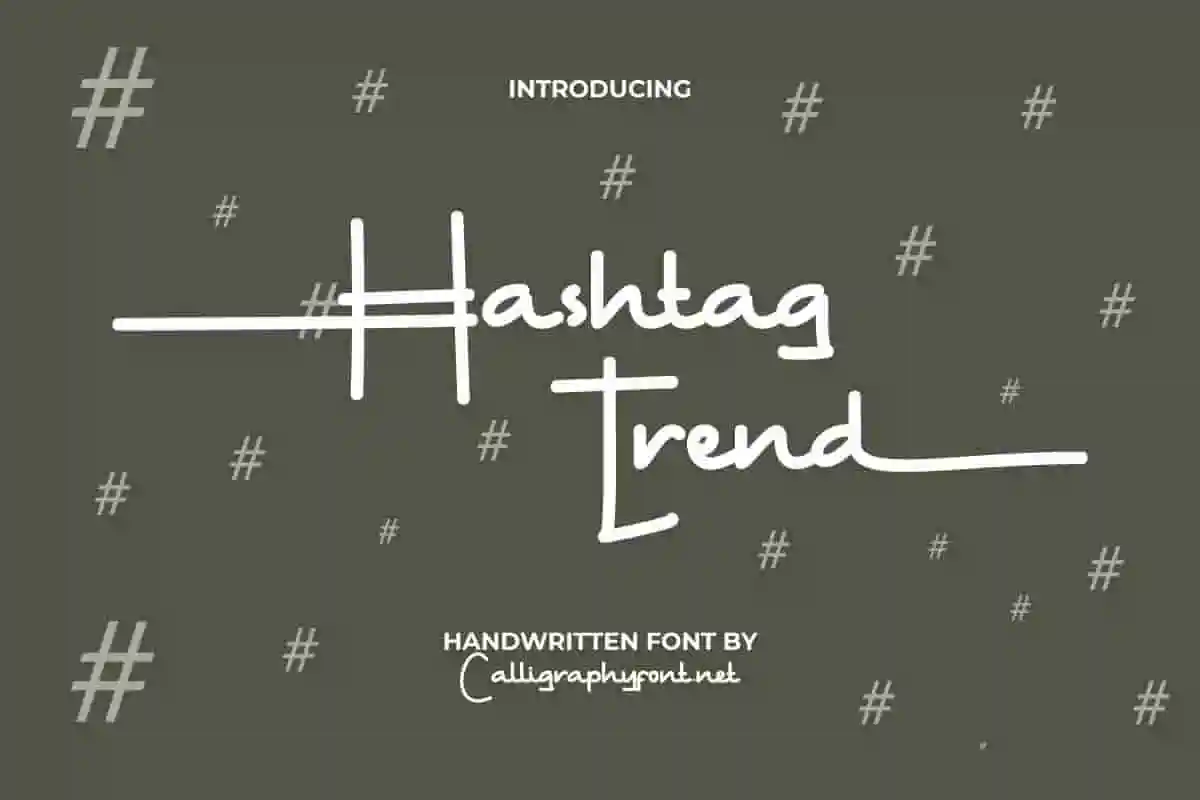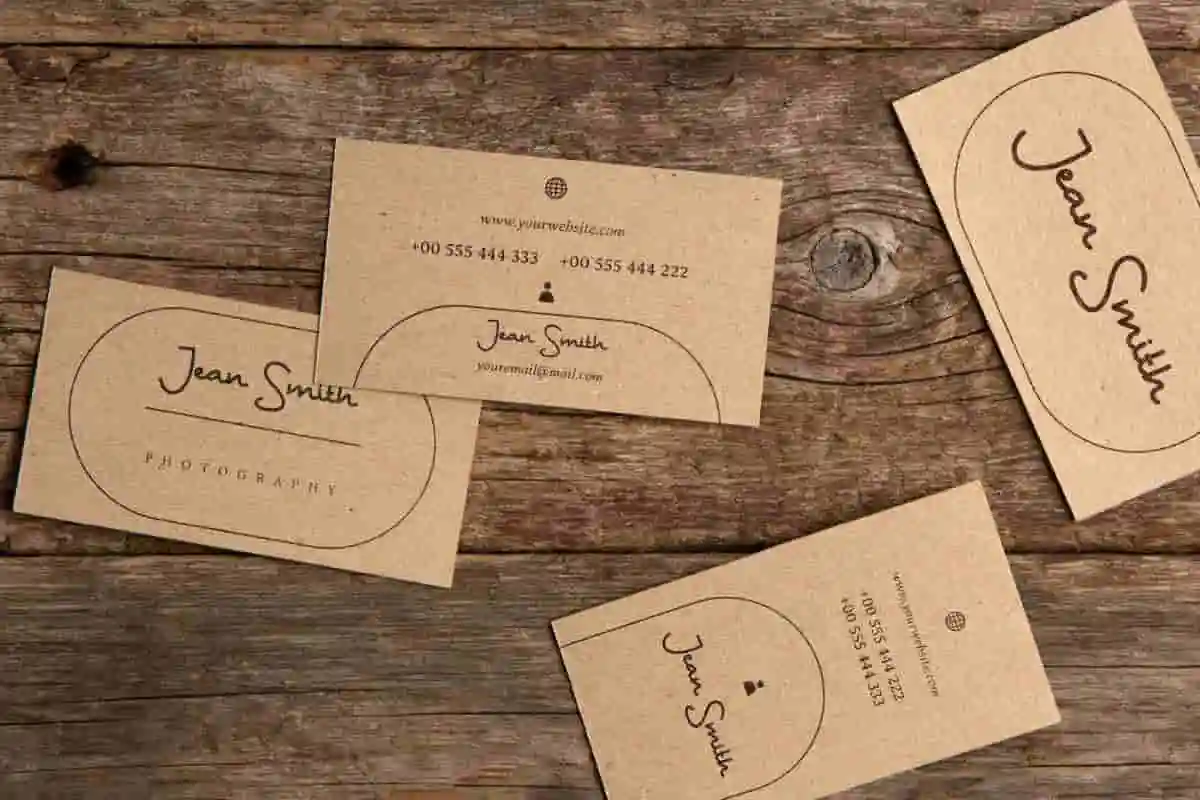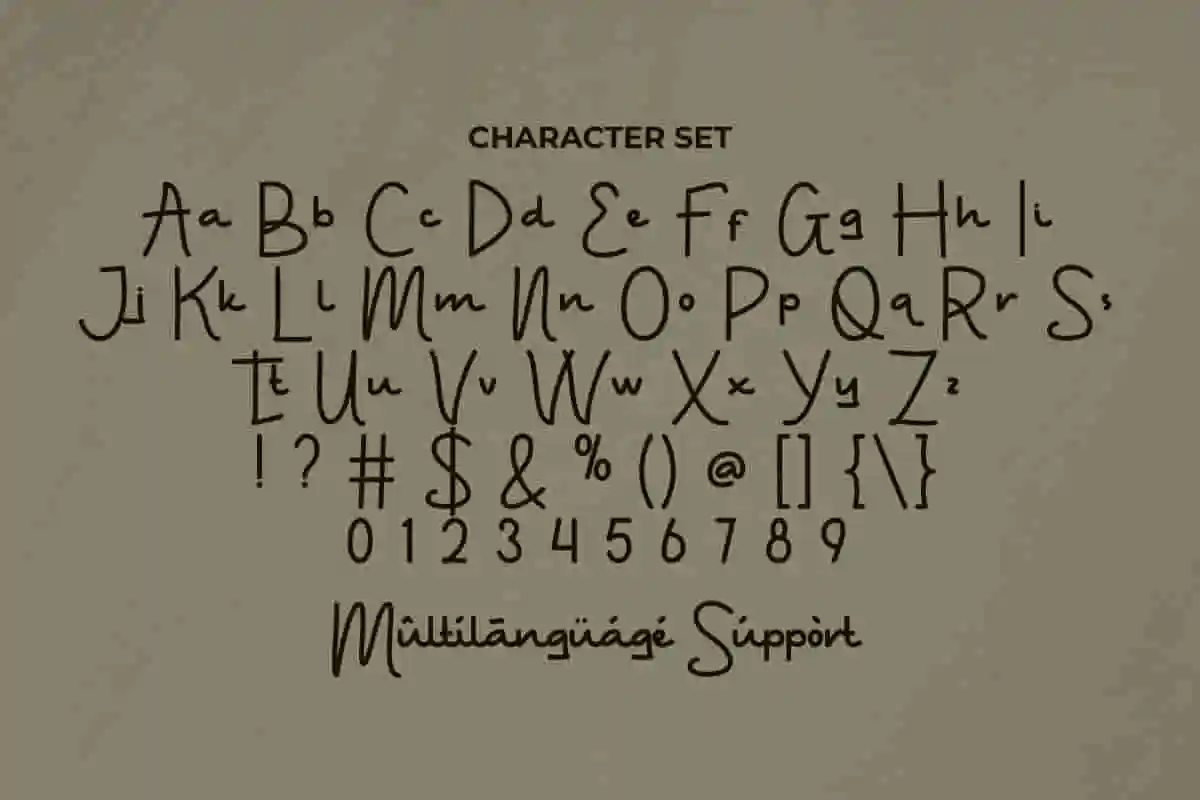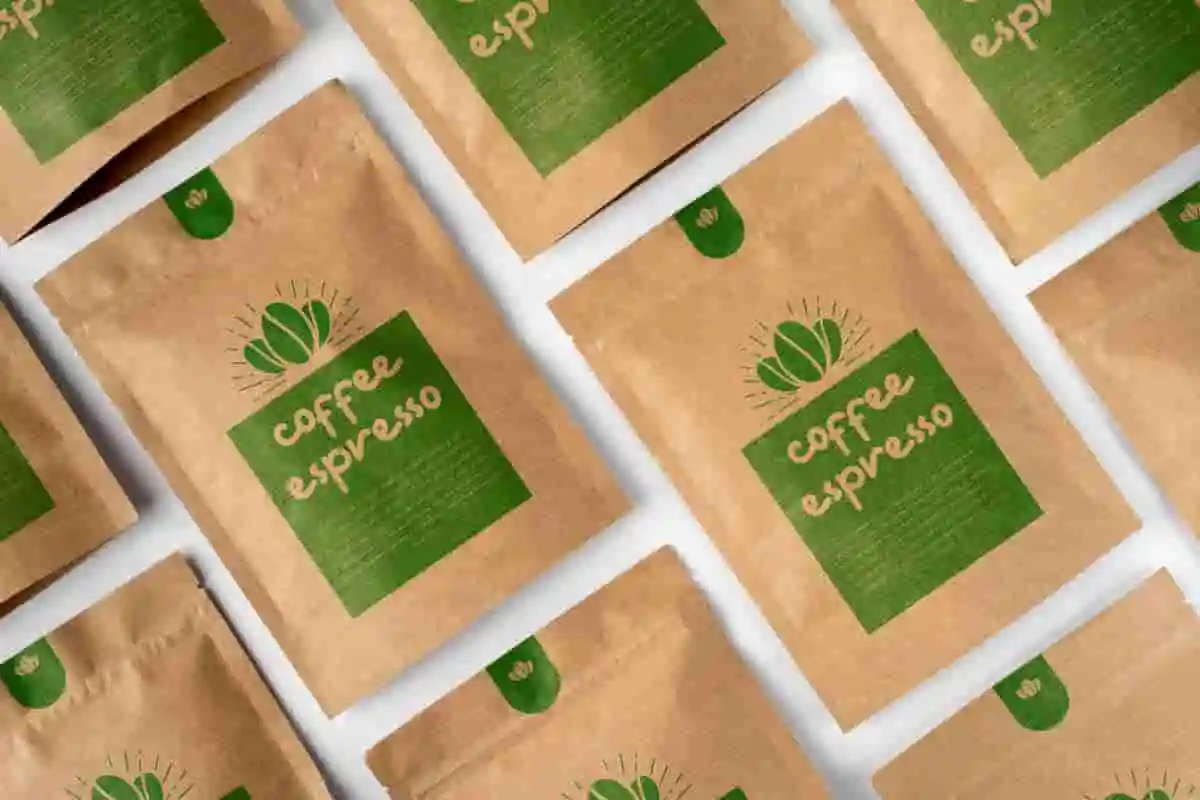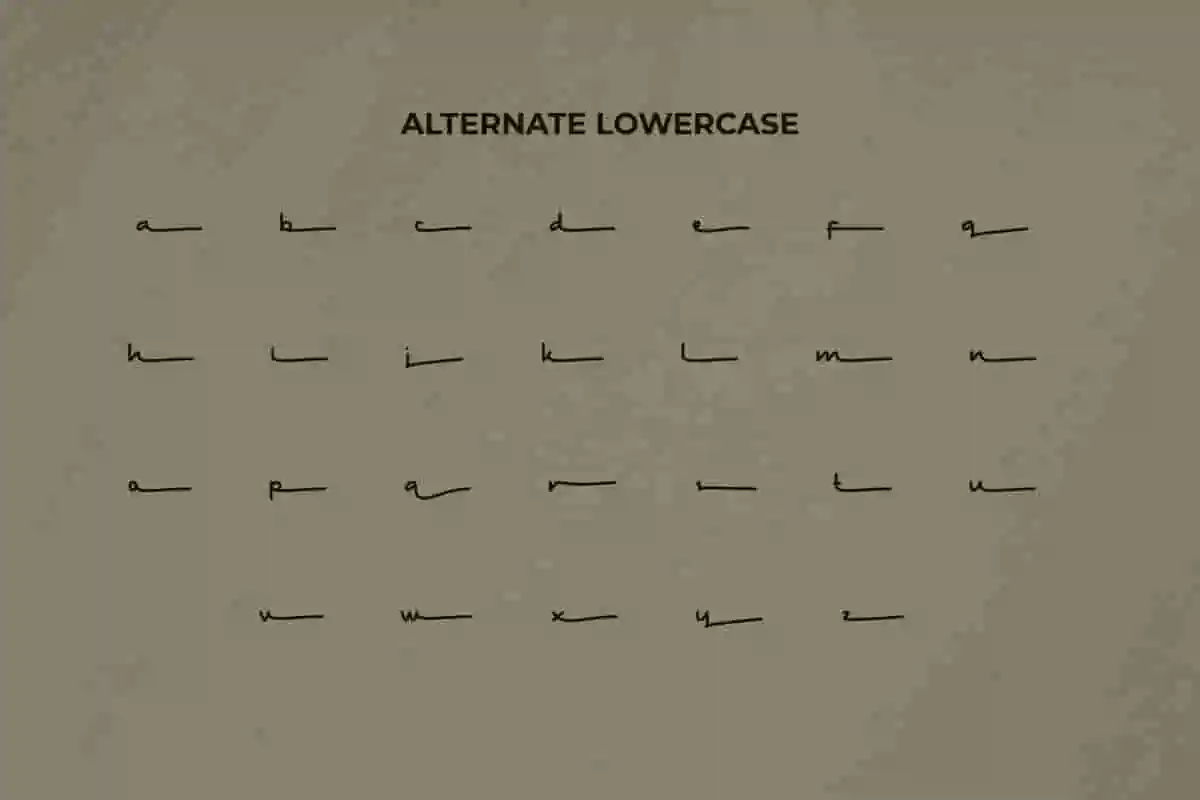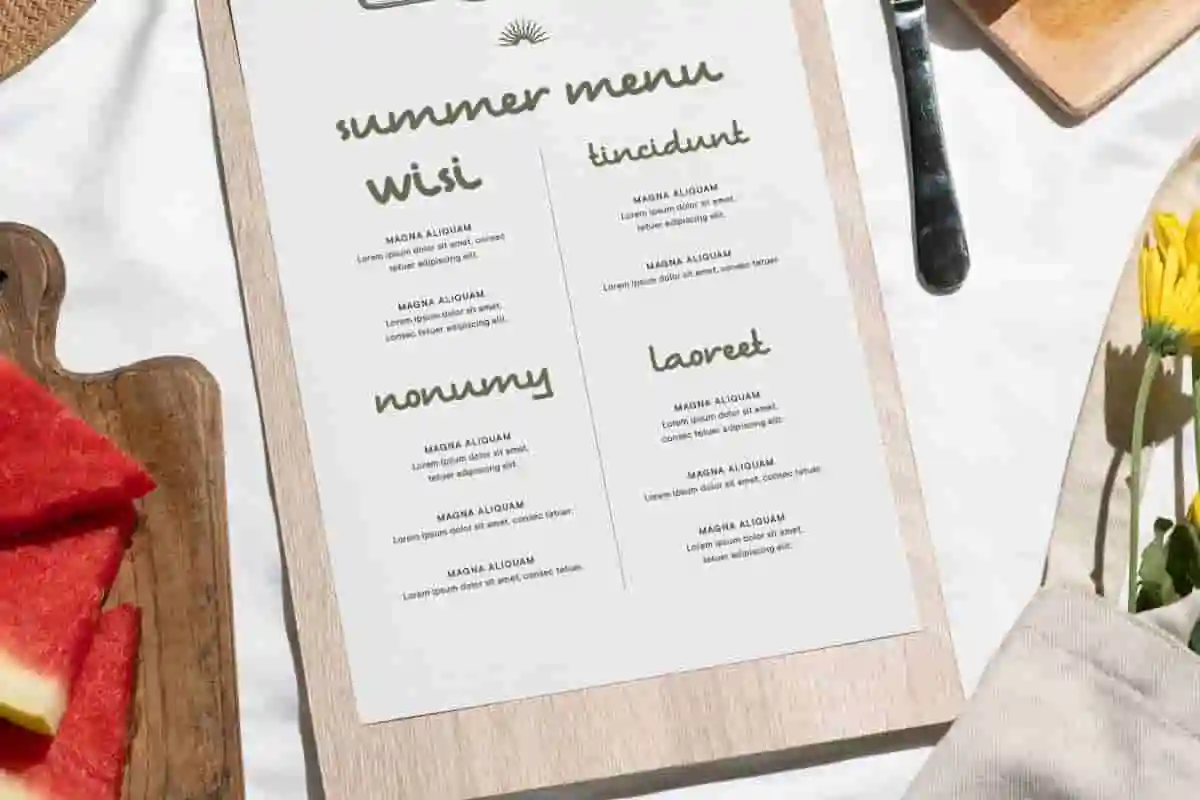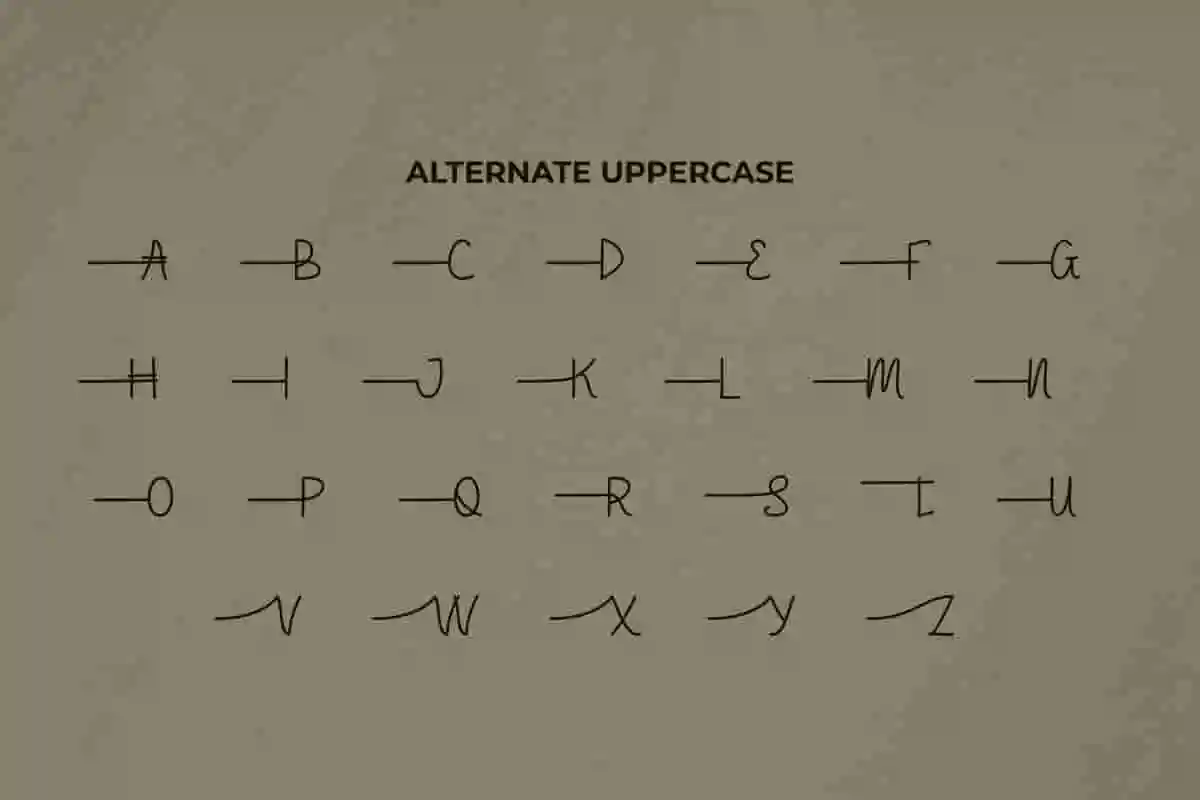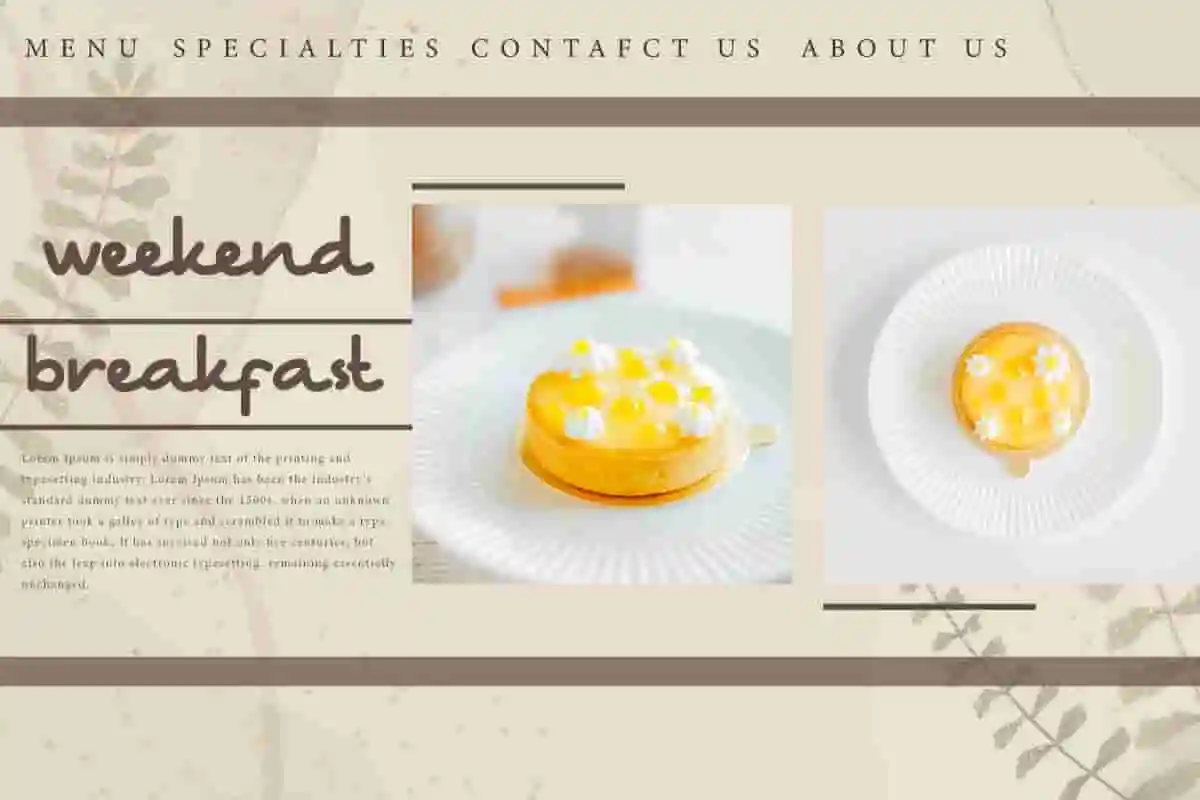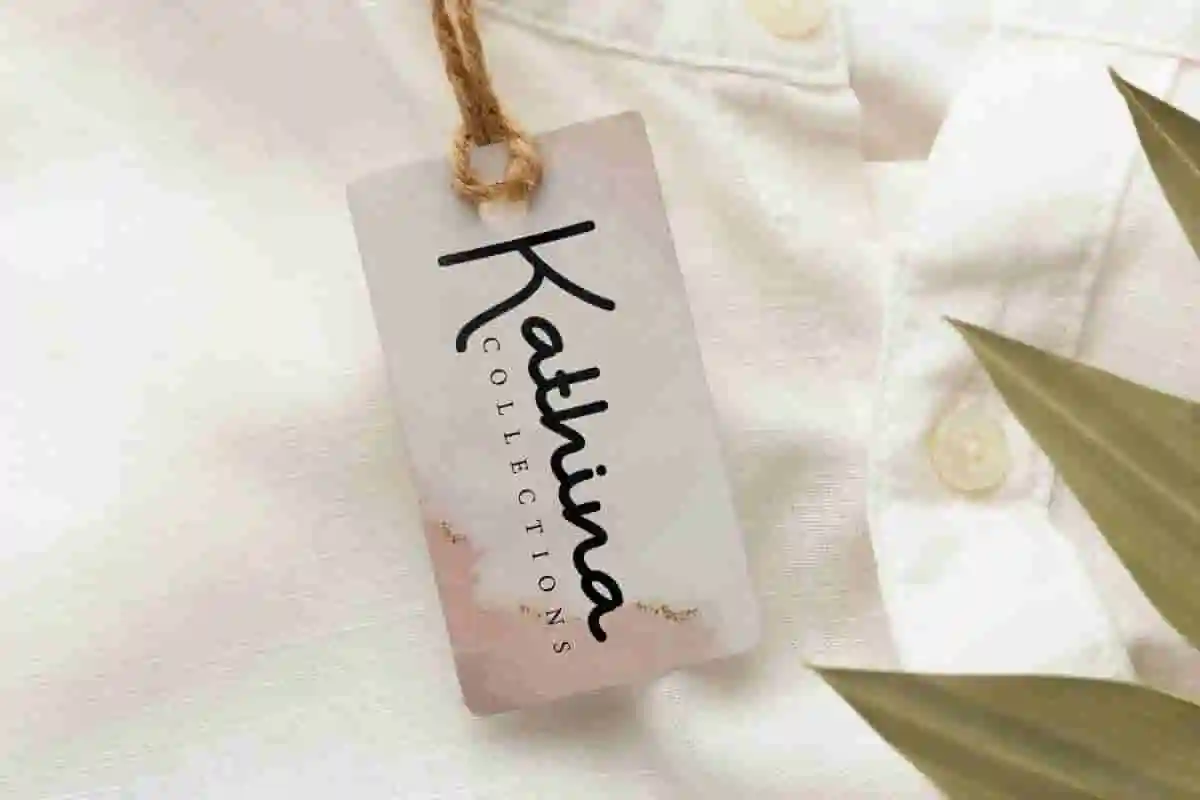
Hashtag Trend Handwriting Font
Hashtag Trend Font is a casual monoline handwritten font that can be used for business card, café, fashion brand, labels, menu, product packaging, restaurant, title, website and anything related to informal style needs with a clean and fun touch.
Hashtag Trend Font is a stylish handwritten font with a clean elegant monoline style, created by Calligraphy Fonts. Net. The font has a strong lines with hand-drawn letterforms which will guaranteed to stand out in your designs, including : brand logo, business card, label, menu, product packaging, stationery, title, website, etc.
Looking for a font that captures attention, adds personality, and brings warmth to your designs? Meet Hashtag Trend Handwriting Font – a modern handwritten typeface that combines elegance with a casual, organic flow. Whether you’re a designer, business owner, or content creator, Hashtag Trend helps your message stand out in a scroll-happy world. Perfect for logos, social media posts, branding, packaging, invitations, and more – this font adds a human touch that connects.
Are you searching for a font that adds a personal, trendy, and authentic touch to your creative work? Look no further. Hashtag Trend Handwriting Font is the perfect blend of modern aesthetics and handcrafted charm. With its smooth strokes and natural flow, Hashtag Trend captures the feel of genuine handwriting, making your message feel more real and relatable. It’s perfect for brands that want to look both professional and approachable.
Say goodbye to boring, lifeless text. Say hello to Hashtag Trend – a fresh, modern handwriting font that adds a personal, stylish touch to any project. Whether you’re a graphic designer, small business owner, influencer, or creative entrepreneur, Hashtag Trend Handwriting Font is made for you. It combines natural handwriting strokes with clean, trendy vibes — making it perfect for logos, social media graphics, product packaging, branding, greeting cards, and so much more.
Hashtag Trend Font brings an informal style and casual feel that will make this font a top choice for any creation that requires a relaxed touch. It will be suitable for industries, such as boutique, café, event tenant, florist, homeware, photography, restaurant, and many more!
Hashtag Trend Font comes with a full set of Uppercase and Lowercase Basic Characters, Number, a large range of Punctuation and Symbol, Alternates, and also supports multilingual characters. Ready to use both on Windows machine or Mac with simple installations. It’s tested to work well in the Adobe Apps (Illustrator, Adobe InDesign, Adobe Photoshop) CorelDraw, and others. PUA Encode Characters means you can access all characters easily – Fully accessible without additional design software.